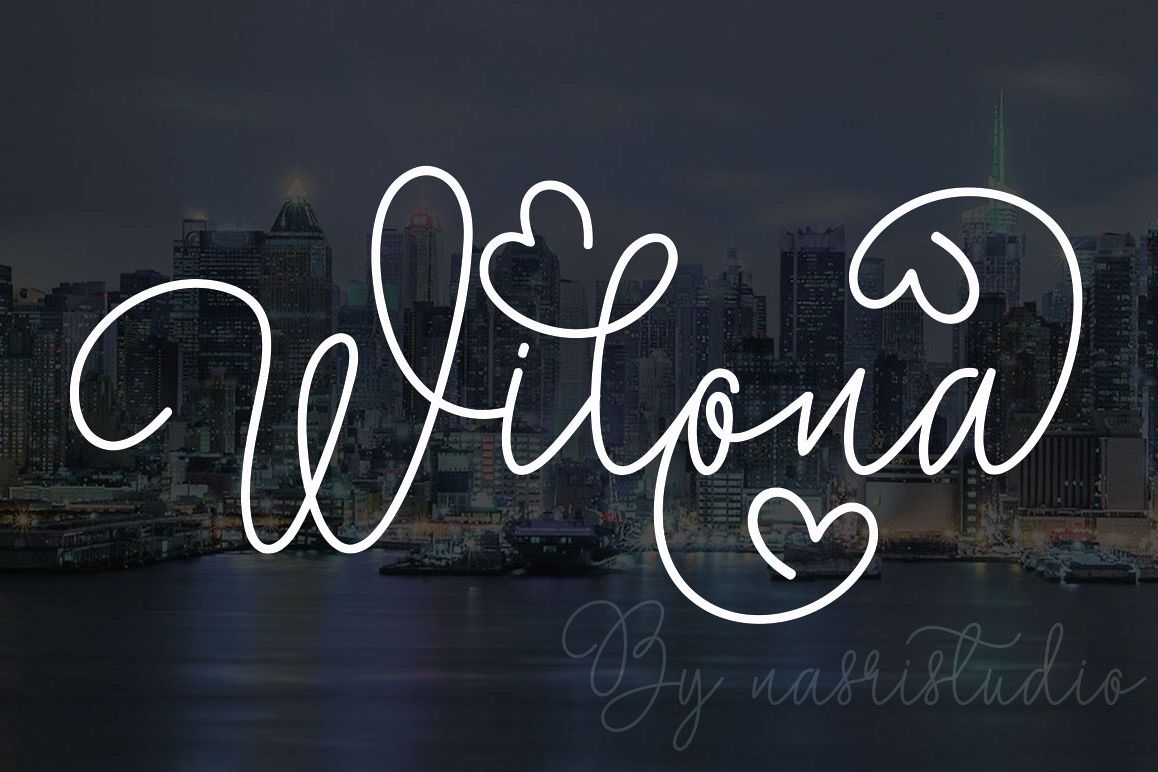
Wilona
Wilona mono line is the font style handmade dancing and then live trace to have unique forms of calligraphy, the writing style is very natural.
The Features of this fonts is;
* Standart ligatures
* Stylistic Alternates
* PUA Unicode (Private Use Areas)
Languages supported: Breton, Catalan, Czech, Danish, Estonian,French, German, Hungarian, Icelandic, Italian, Romanian, Scottish Gaelic, Slovak, Latvian, Lithuanian, Norwegian, English, Finnish, Polish, Portuguese, Slovenian, Spanish, Swedish, Turkish, Welsh. Basically, all european languages that are based on latin alphabet